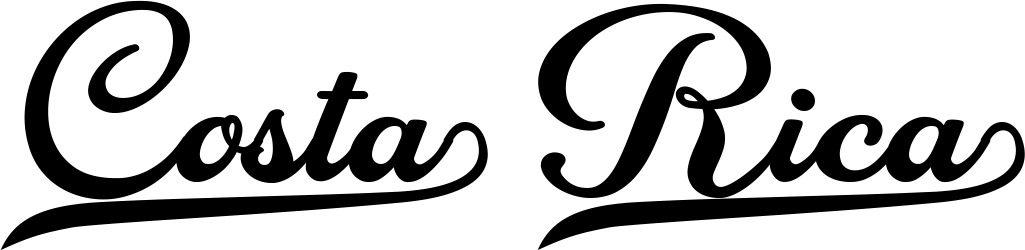
Costa Rica Font
When it comes to designing your typography setup, fonts are identified as the primary decider. That’s why our website, Resource Boy, brings a script font inspired by artistic hand drawing to give friendly, happy, and classical vibes to your text.
Although Costa Rica doesn’t sustain punctuations and numbers, its spirited and cursive design can do wonders for creating headlines, posters, invitations, greeting cards, quotes, TV shows, and more.